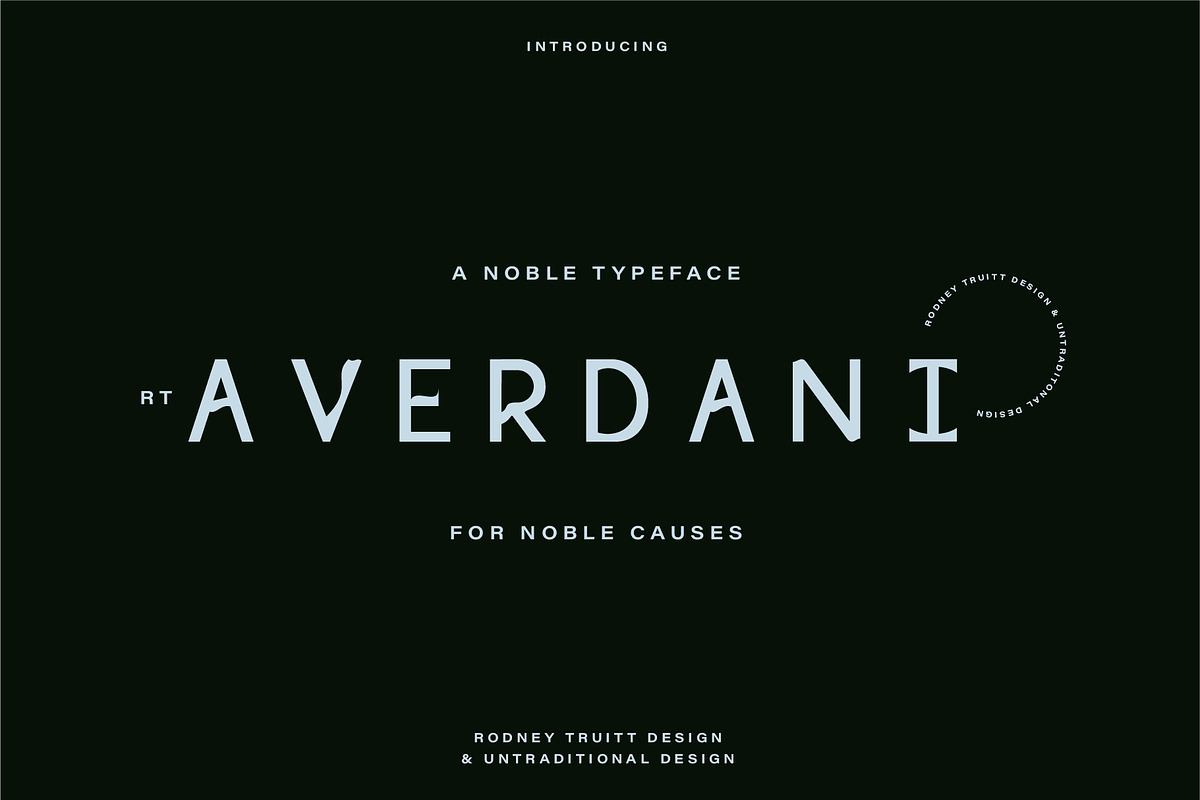
Averdani | A Noble Typeface Free Download is an elegant, sophisticated serif font that brings a touch of nobility to any design project. With its graceful serifs and timeless letterforms, Averdani is perfect for luxury branding, editorial layouts, high-end invitations, and product packaging that demands a sense of refinement.
Designed for those who seek to make a statement of elegance and class, Averdani combines the best of classic typography with modern style. Its beautiful structure ensures readability while maintaining a strong visual presence, making it ideal for both print and digital projects. Whether you're creating a prestigious logo, designing a luxury product label, or crafting a chic wedding invitation, Averdani adds an air of exclusivity to every word.